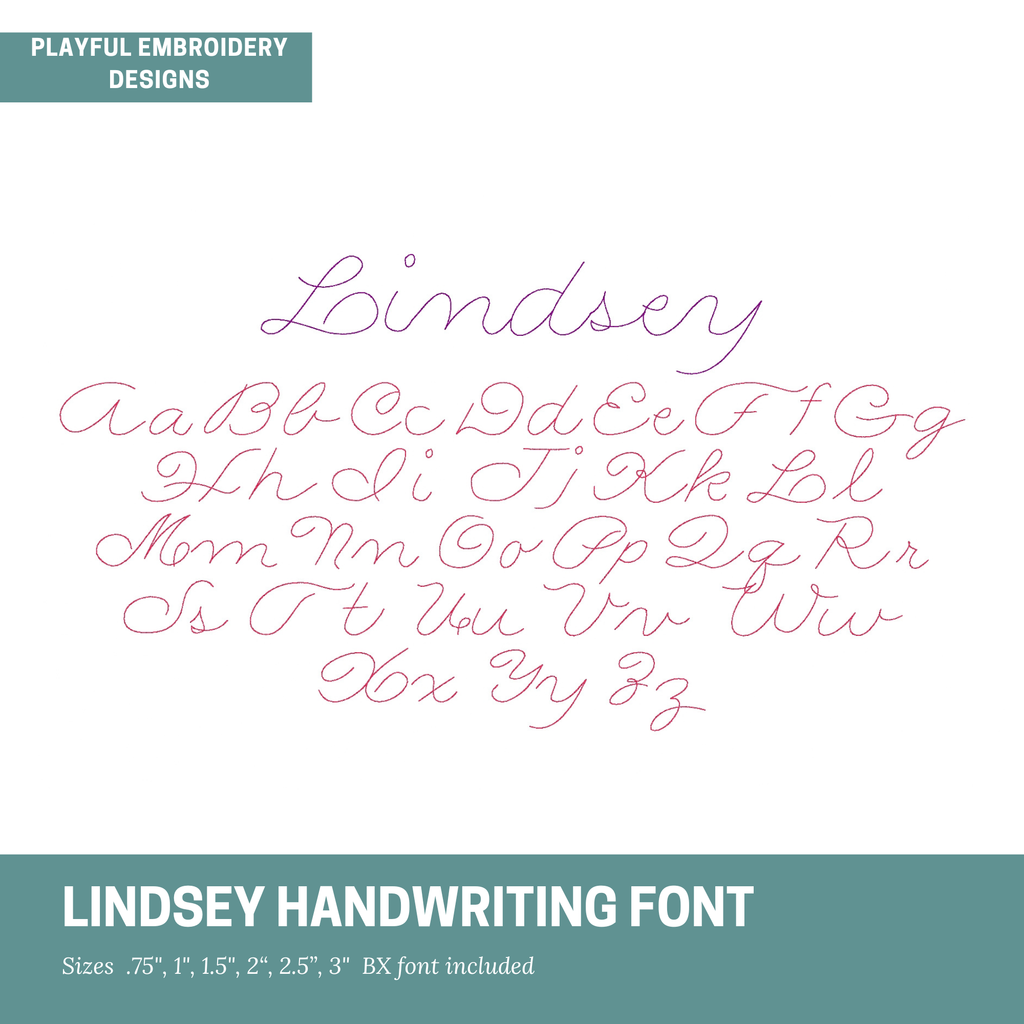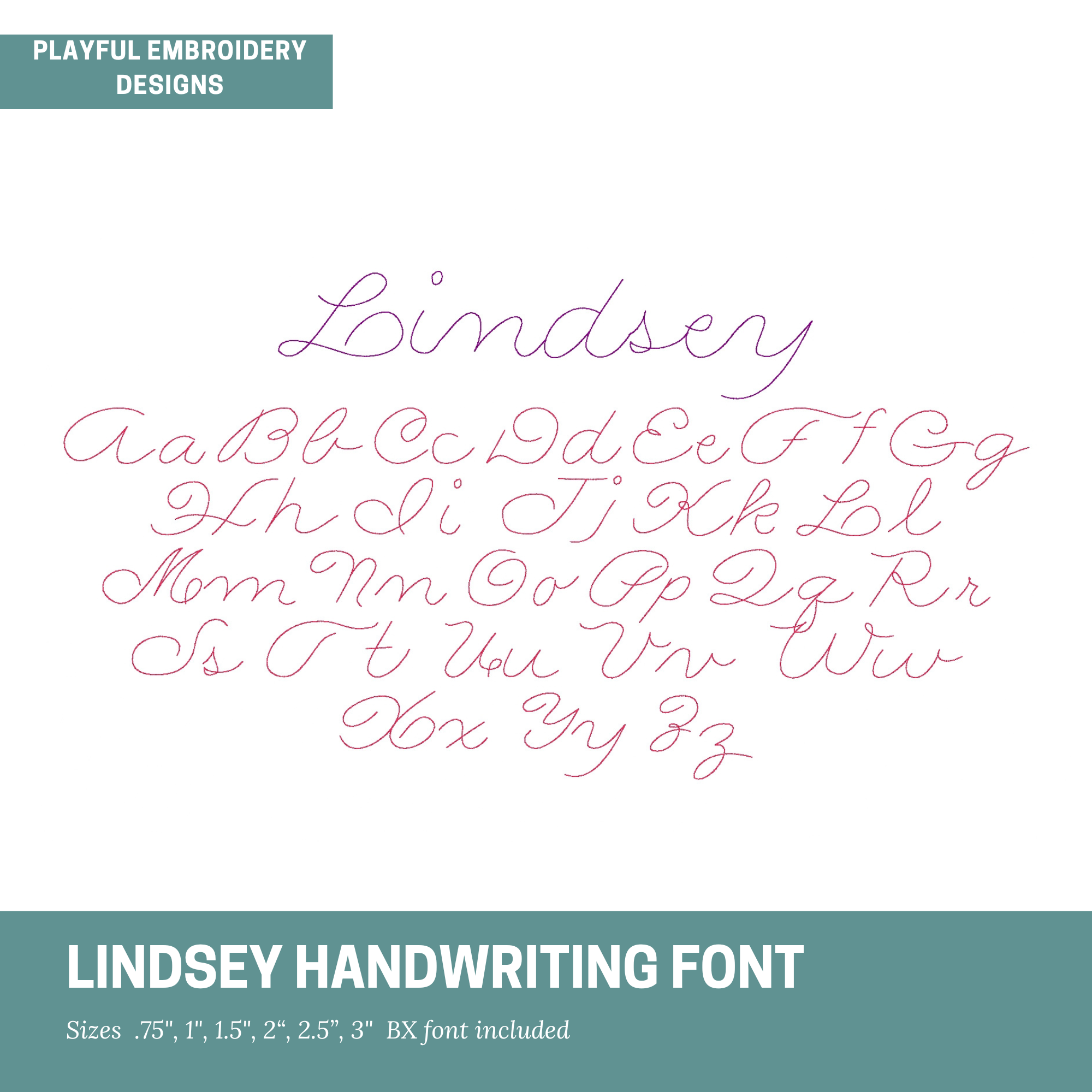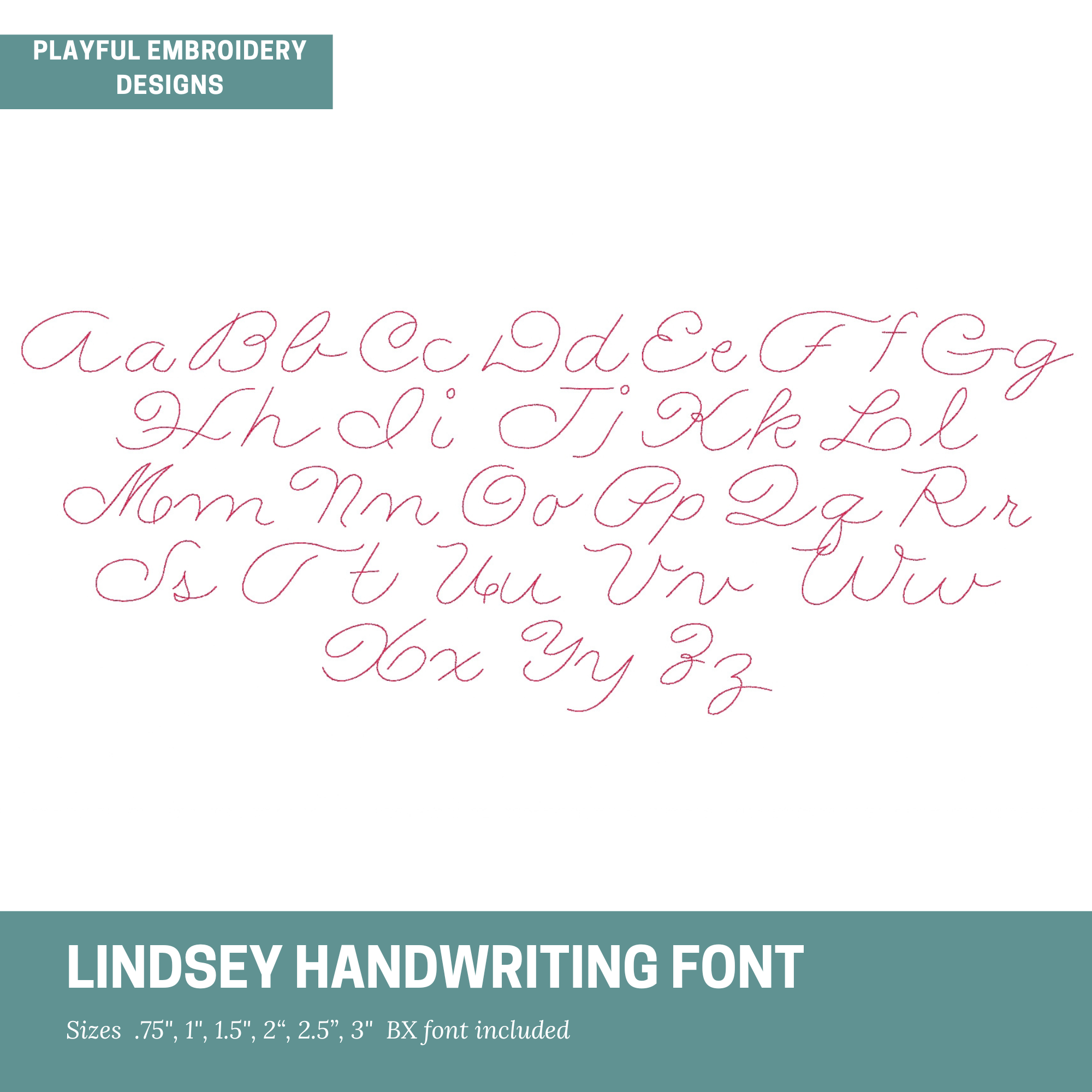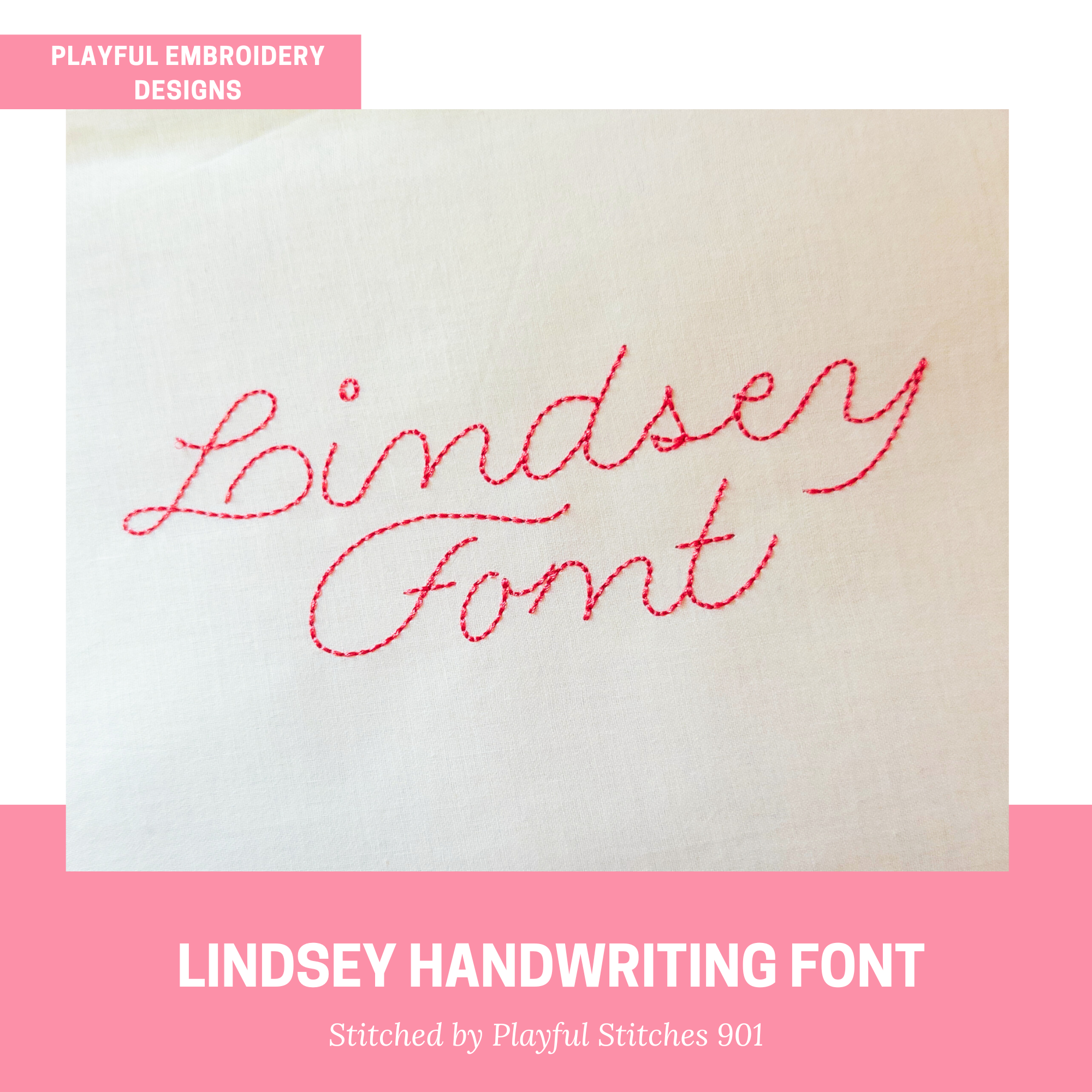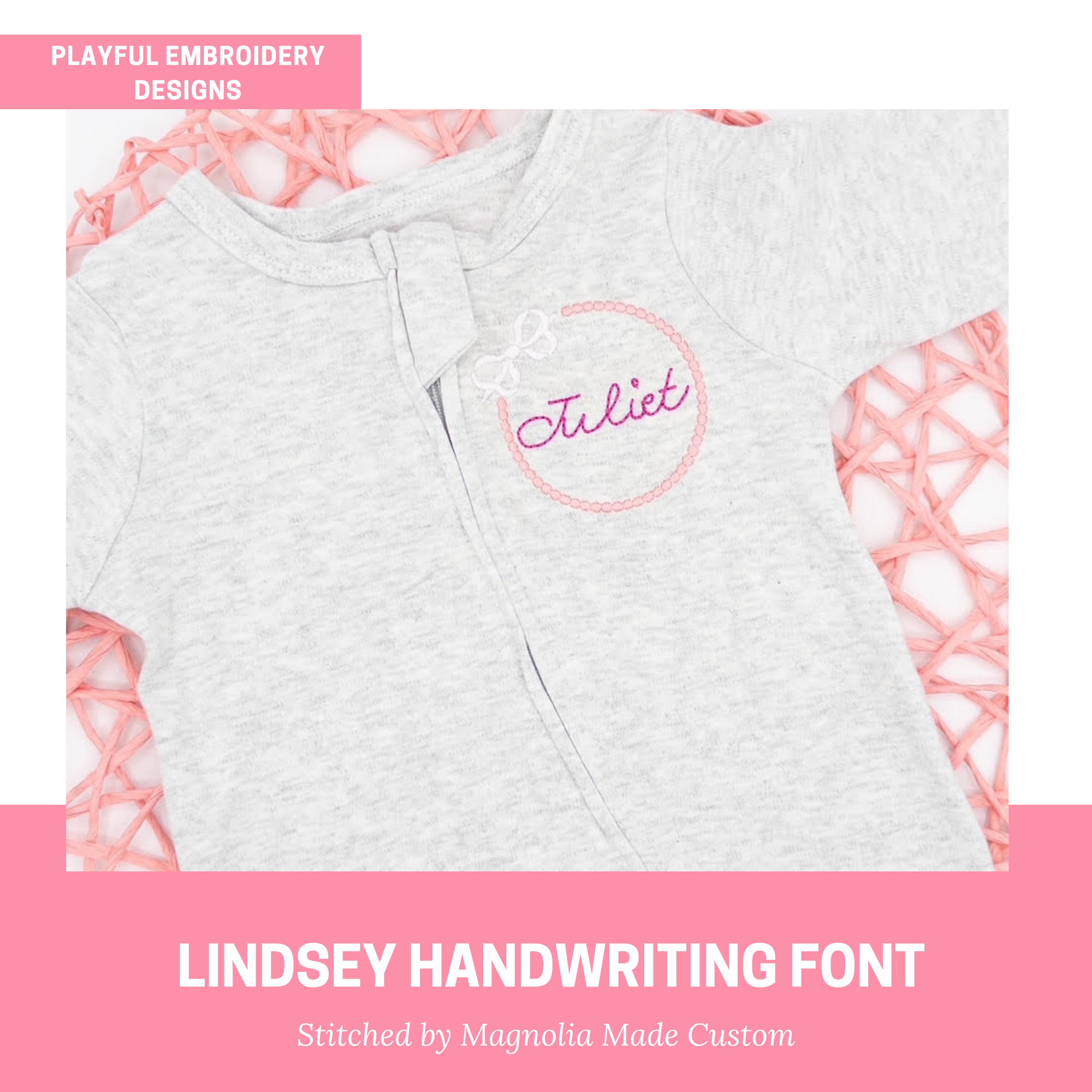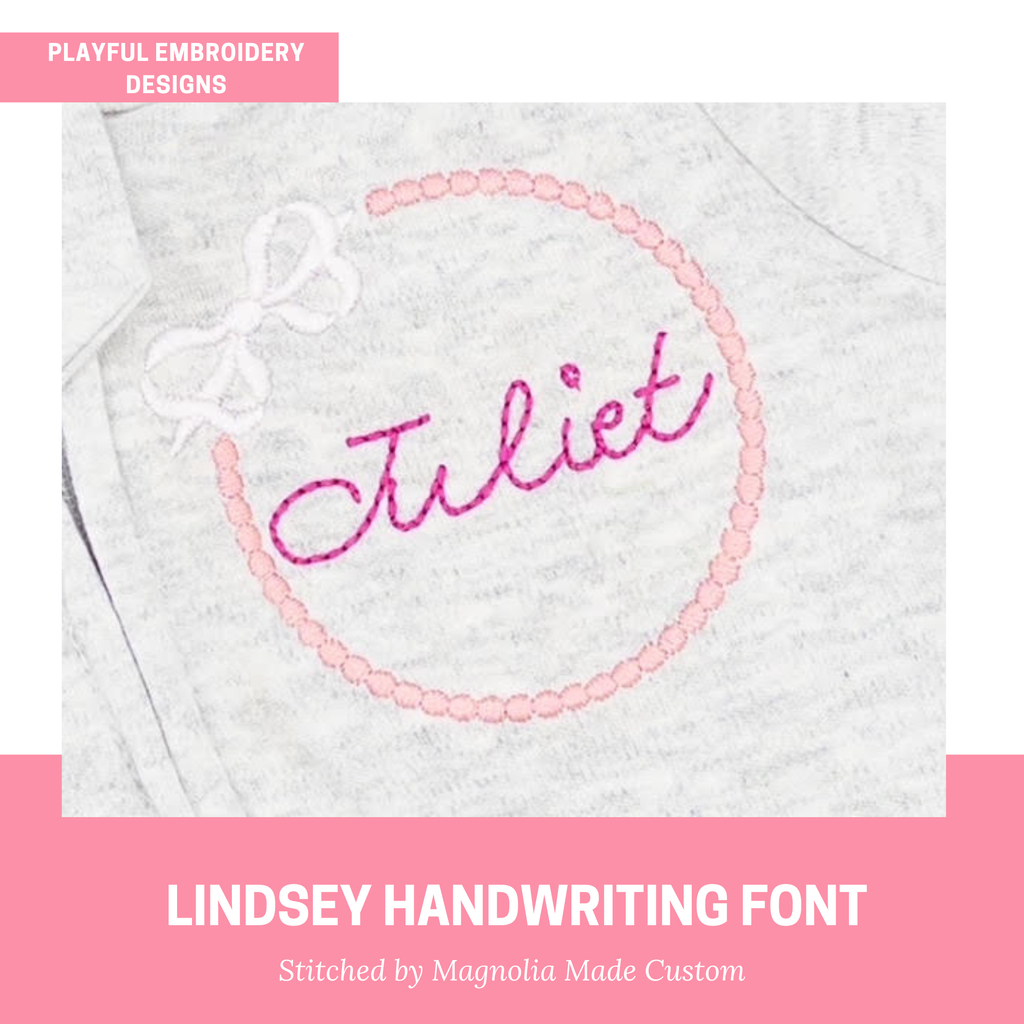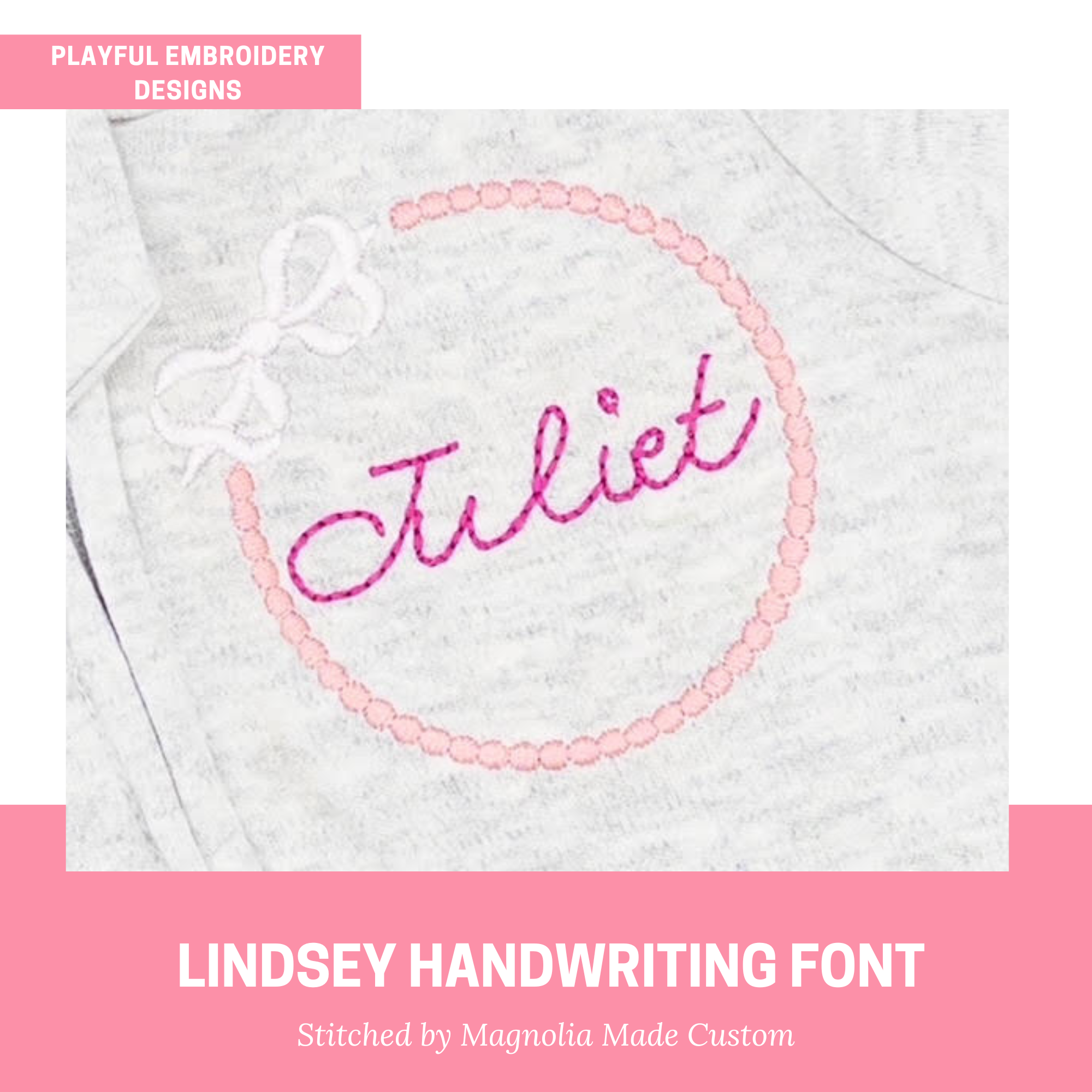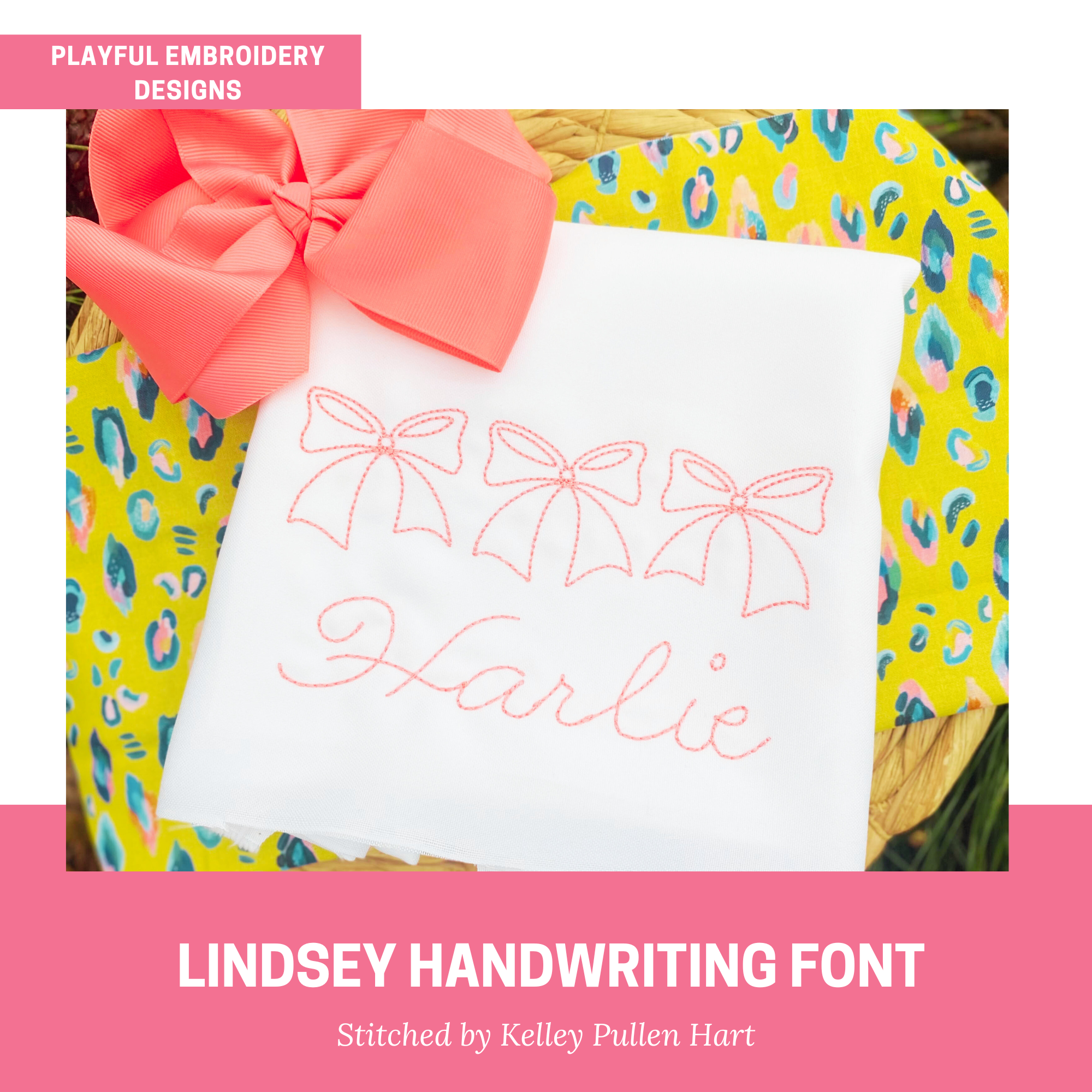
Lindsey Bean Stitch Embroidery Font, Playful Handwriting (Digital Download)
Introducing the Lindsey bean stitch handwriting machine embroidery font. This fun and playful font is perfect for children's and baby items or anything you want a handwritten print look.